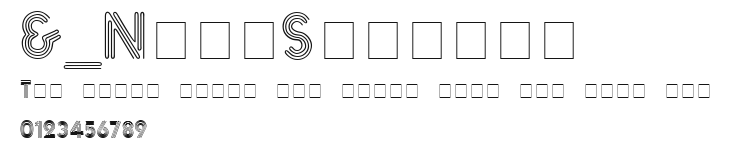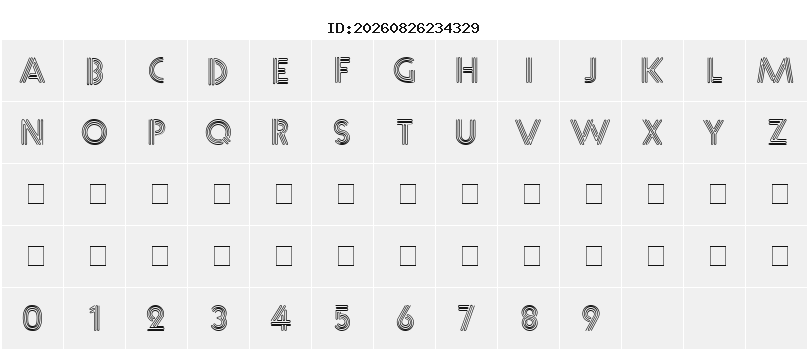
• Font Name: &_NearSighted
• Full Font Name: &_NearSighted Normal
About &_NearSighted.ttf
&_NearSighted.ttf is a modern, elegant sans-serif font designed for ultimate readability and visual harmony. Perfect for branding, headlines, web design, and print materials.